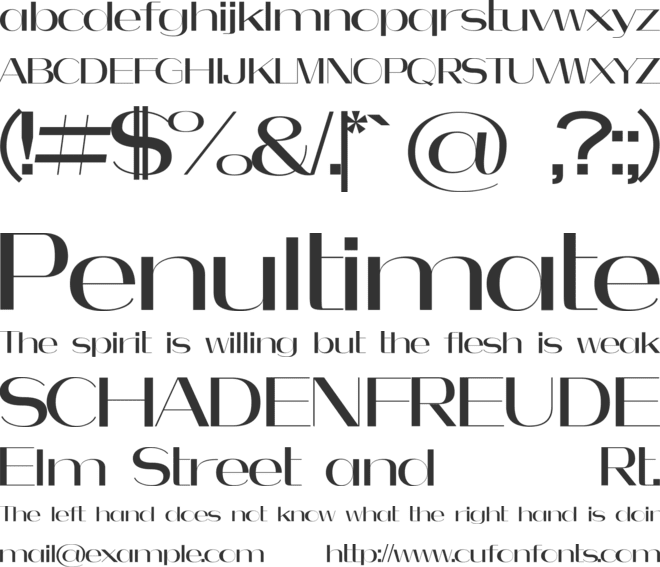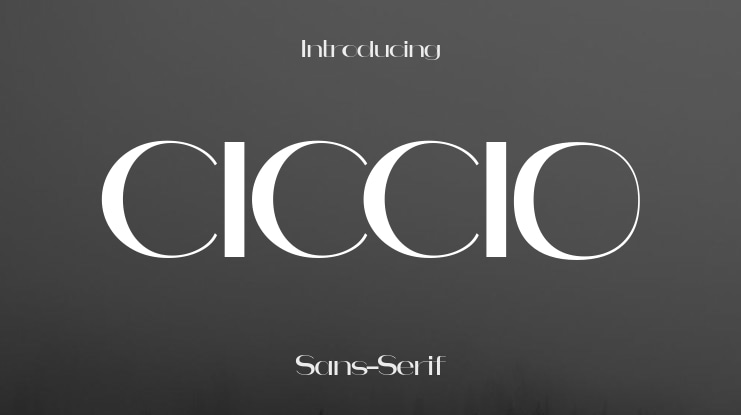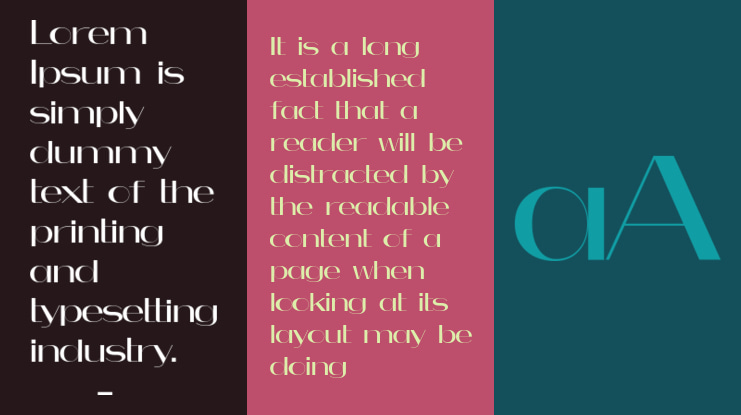
CICCIO Font Family
Ciccio is a delicate sans serif with multilingual support—perfect for minimalist branding, lifestyle packaging, and editorial elegance.